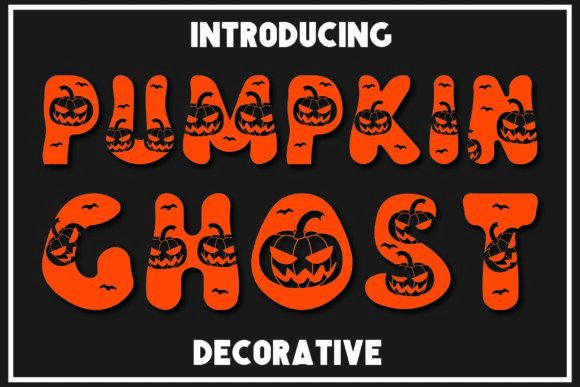
Step into a world where creativity meets spooktacular charm with Pumpkin Ghost Font, the enchanting decorative typeface that's sure to cast a spell on your designs. Inspired by the haunting beauty of Halloween, this font family weaves together playful graphics with classic letterforms, creating a visual masterpiece that will leave you spellbound.
Indulge in a symphony of visual delights as Pumpkin Ghost Font dances across your designs. Each character is adorned with intricate details, from ghostly apparitions and playful pumpkins to eerie bats and mystical symbols. Let your imagination soar as you craft designs that ooze with Halloween spirit, creating an unforgettable experience for your audience.
Unleash your creativity and explore the endless possibilities that await with Pumpkin Ghost Font. Whether you're designing for printed fabrics, publications, billboards, packaging, or any other medium, this font family will add a touch of haunting elegance to your projects. Embrace the magic of Halloween and let your designs shine with Pumpkin Ghost Font.
Embark on a journey of design enchantment with Pumpkin Ghost Font, the font that will cast a spellbinding charm on your creations. Its unique blend of graphics and typography will elevate your designs to new heights, ensuring that your message leaves a lasting impression. Dare to be different and let Pumpkin Ghost Font be your creative muse.